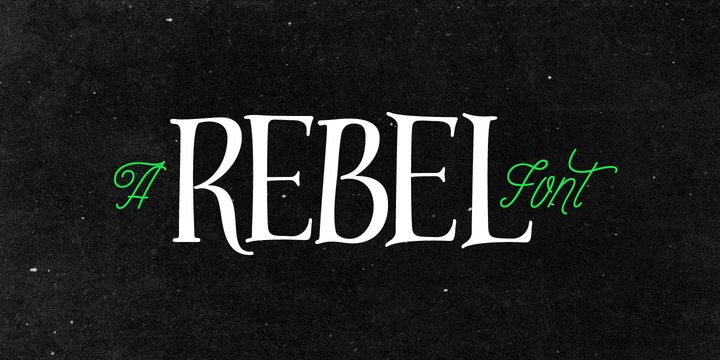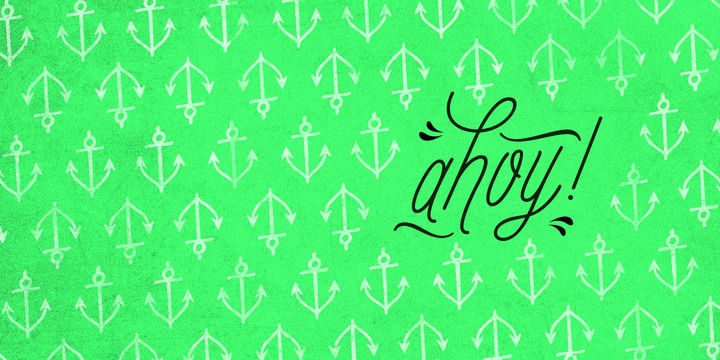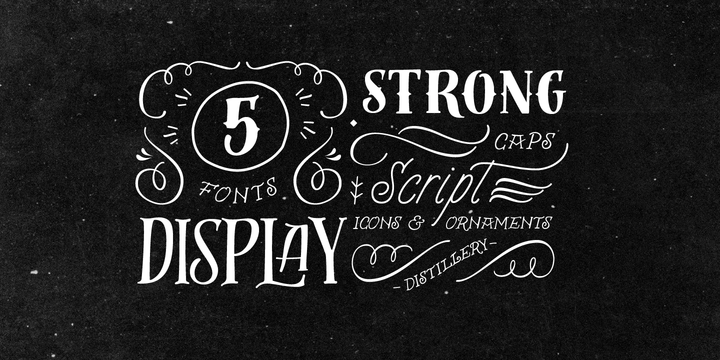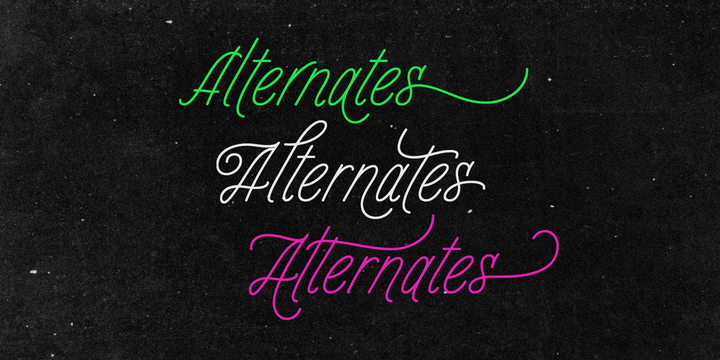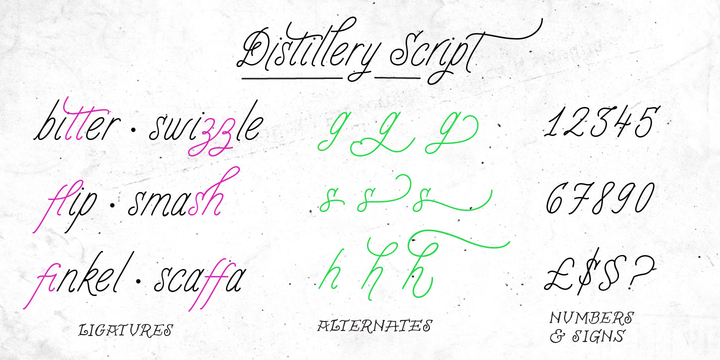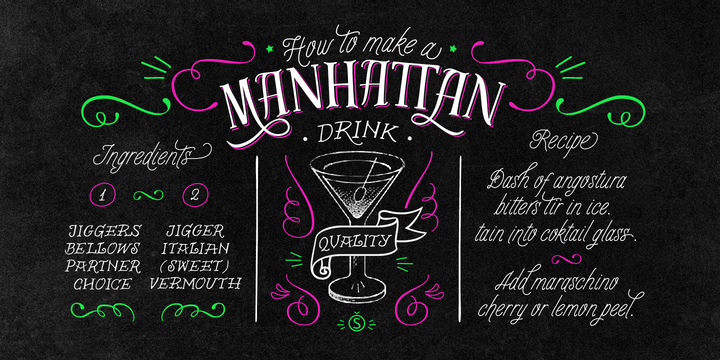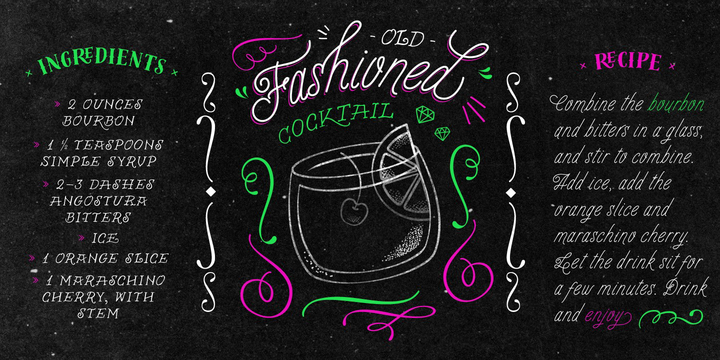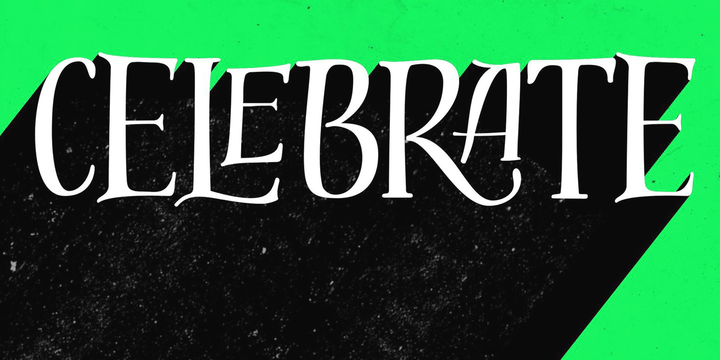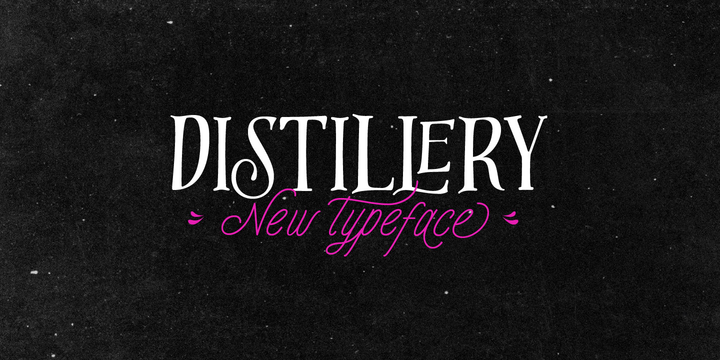
The Distillery Set is a collection of 5 fonts: Display, Strong, Script, Caps, and Icons. The fonts’ influences are in lettering from different eras and styles. They reflect forms from the Arts & Crafts movement, the Roman majuscules, artistic printing, traditional tattoo lettering, sing painting and showcards from the early XX century and some typography trends started from 1970s America and being used today like chalkboard art or handmade labels in packaging. This is collection of fonts that strongly hints of the spontaneous ways of pencil on paper, the dynamic rebellion and simultaneous imperfection and elegance of DIY.
Distillery Display
Distillery Strong
Distillery Script
Distillery Caps
Distillery Icons